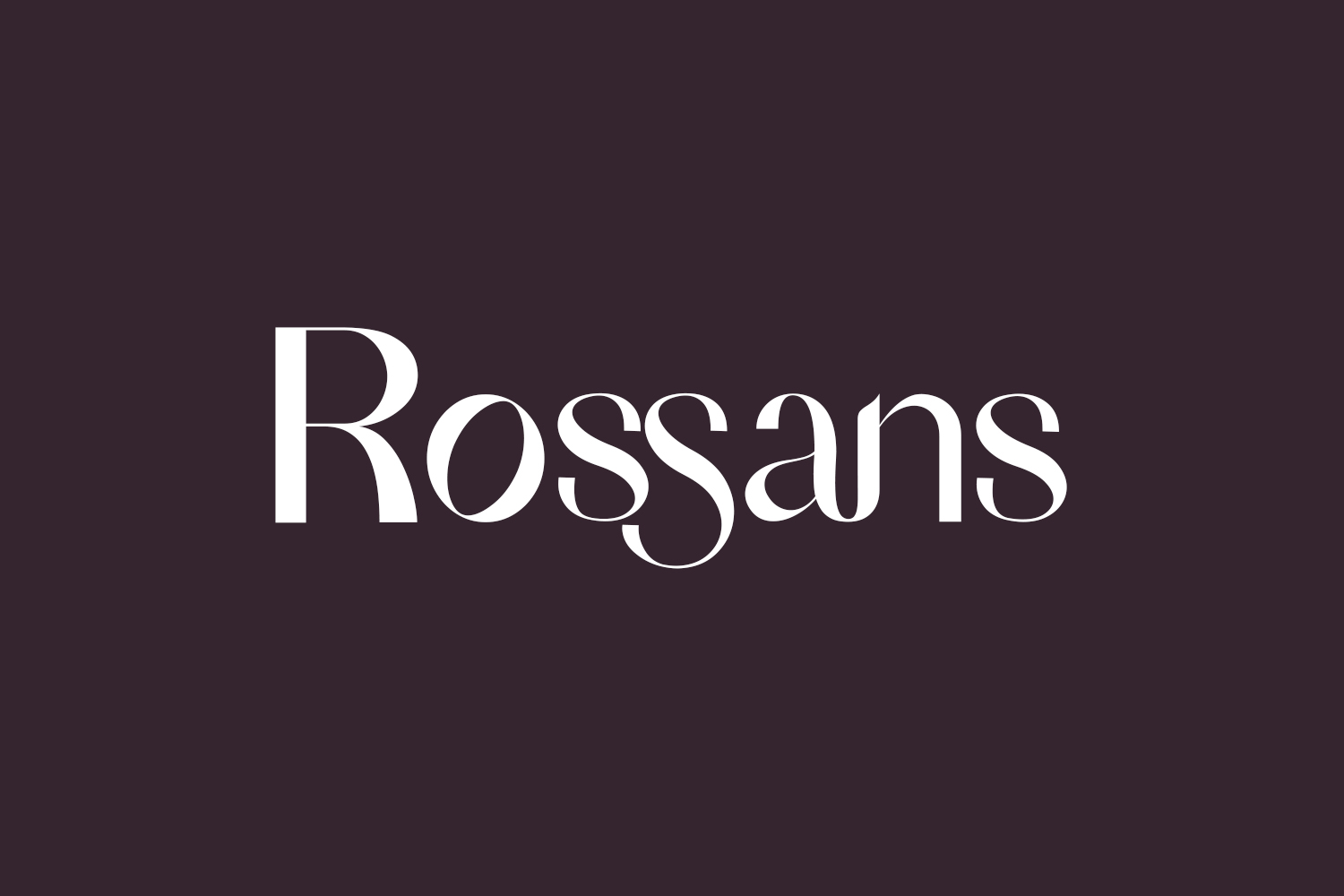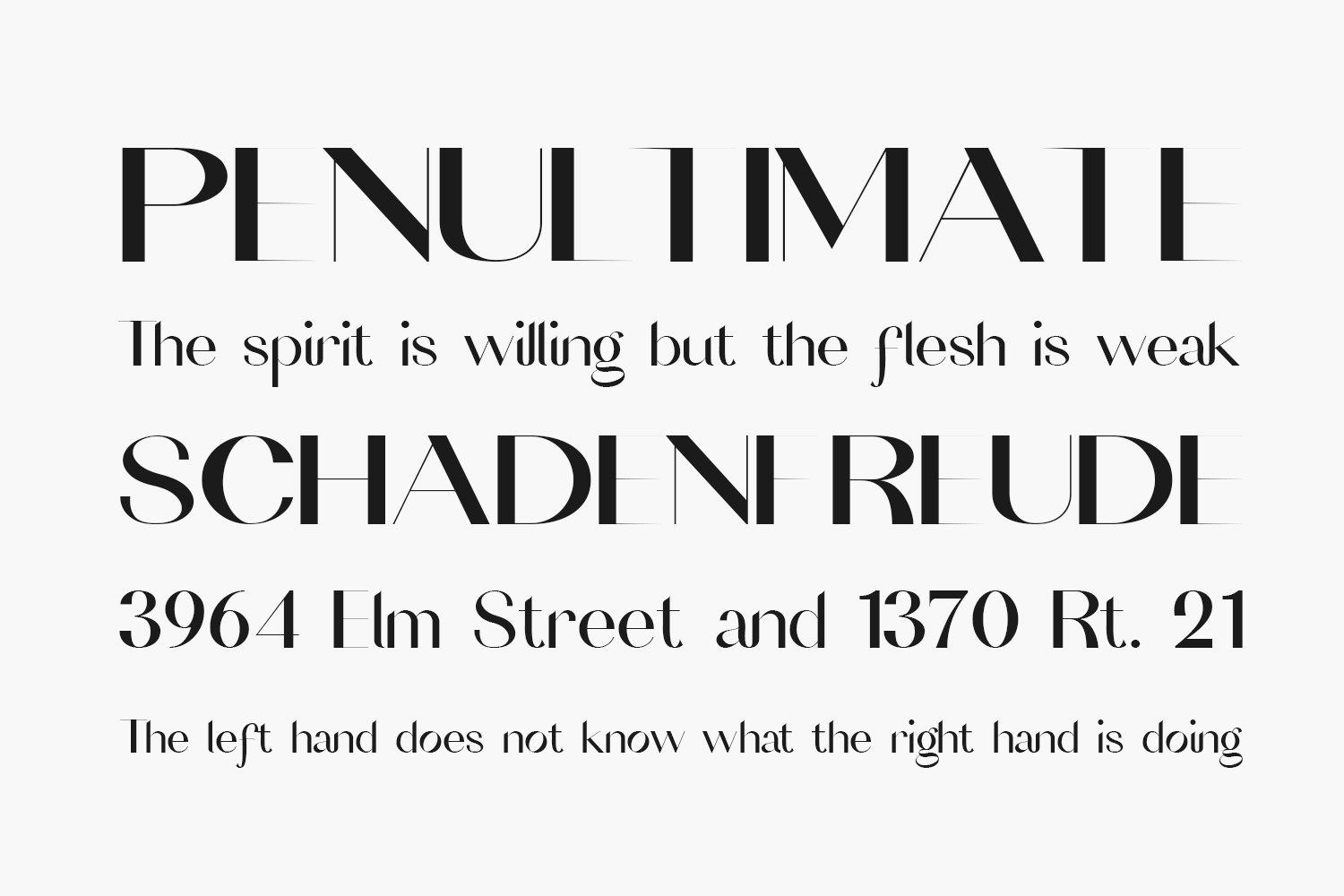
Rossans Free Font is a stylish and fashionable sans serif font. Trendy yet elegant, this font will elevate each of your creations. Download the font for free if you need it for personal use or purchase the full version for commercial use.